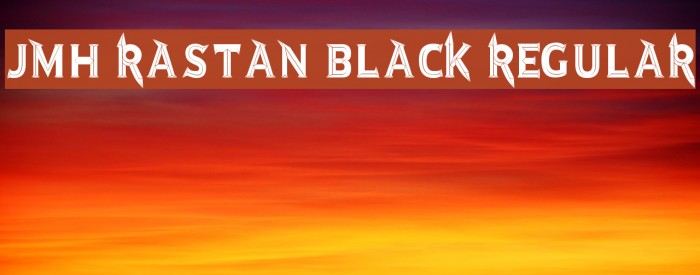
JMH Rastan Black Regular Font
This font features a bold and dynamic design with sharp, angular edges and a distinct three-dimensional effect. The characters are embellished with pointed serifs and intricate detailing, giving them a strong, impactful appearance. The uppercase letters are particularly striking, with a sense of movement and energy that makes them stand out. The font's unique style is reminiscent of vintage or retro themes, yet it maintains a modern edge through its boldness and clarity. The special characters are equally stylized, complementing the overall aesthetic with their elaborate forms.
A bold, angular font with a vintage yet modern three-dimensional style.
- Proposed Projects: Ideal for video game titles, movie posters, branding for edgy products, or any project requiring a strong, eye-catching typeface.
- Overall Style: Vintage, Modern